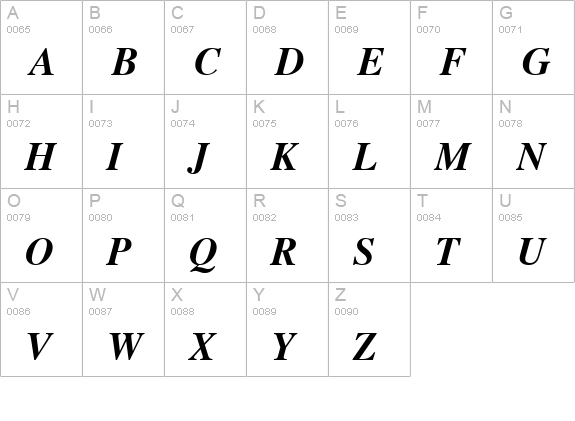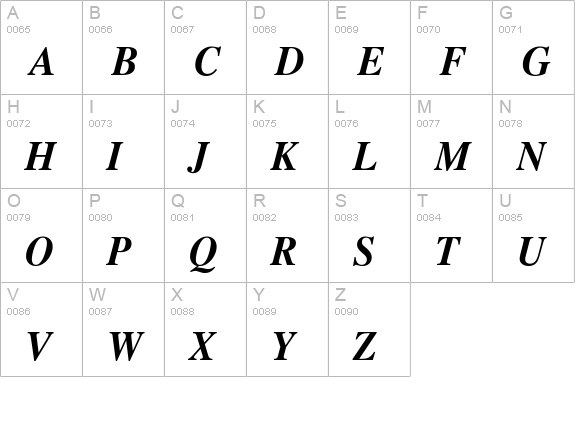
News Serif BOLDITALIC Font Details
Introducing News Serif BOLDITALIC font - a bold and distinguished typeface designed for conveying news and information with authority and elegance. Its sleek and stylish italic design adds a touch of sophistication to any text, making it perfect for headlines, articles, and editorial content. This versatile font features strong serifs and a bold weight, ensuring excellent readability and a commanding presence on the page. Whether used for print or digital media, News Serif BOLDITALIC exudes professionalism and confidence. Best of all, News Serif BOLDITALIC is completely free to download at FontsMarket.com. Take advantage of this opportunity to enhance your projects with a high-quality font that is both modern and classic. Download News Serif BOLDITALIC today and elevate your design to the next level.